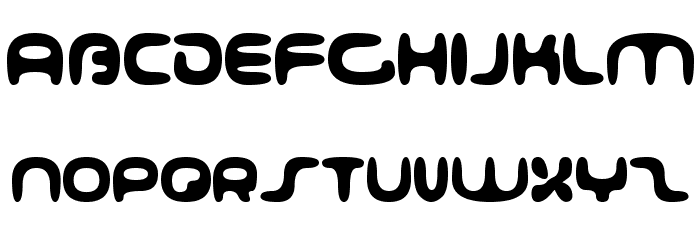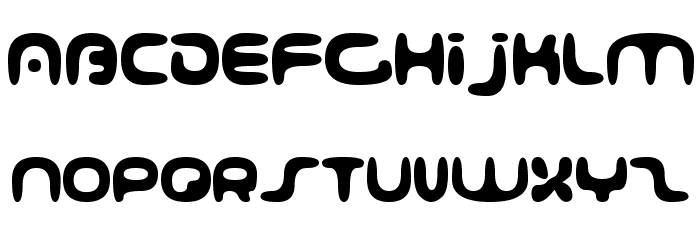
001 Interstellar Log Font
This font features a futuristic and playful design with rounded, bulbous letterforms that give it a unique and eye-catching appearance. The characters are bold and have a smooth, flowing quality, reminiscent of liquid or organic shapes. The uppercase and lowercase letters maintain a consistent style, with some letters having a slightly exaggerated curve or loop, adding to the whimsical nature of the font. The numbers and special characters follow the same design principles, ensuring a cohesive look across all elements. This font is ideal for projects that require a modern, space-themed, or playful aesthetic.
A futuristic, playful font with rounded, bulbous letterforms and a smooth, flowing style.
- Proposed Projects: Ideal for sci-fi themed posters, children's book covers, video game graphics, and branding for tech startups.